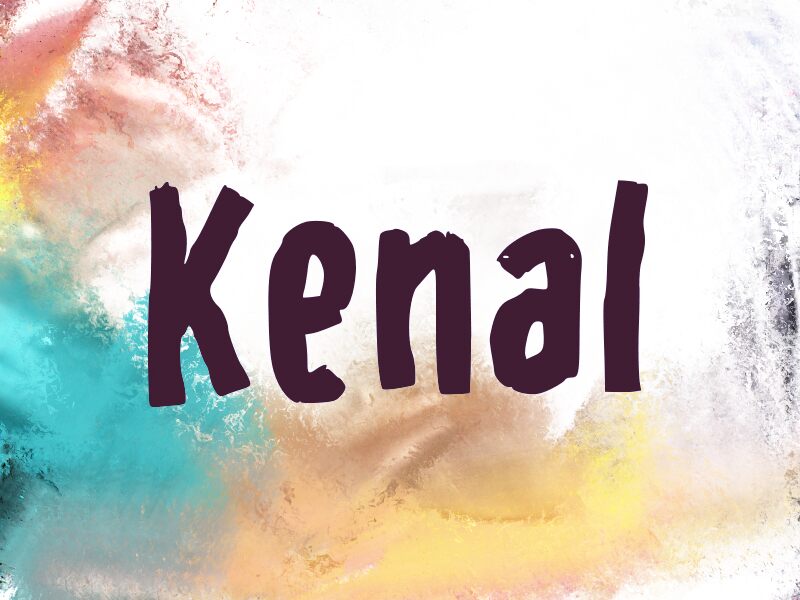
K Kenal font by wep brings a brush style and organic flow to your design projects. This font with a bouncy and hand-drawn look highlights an artistic flair and a modern edge in an overall casual feel. Experience the lively mood it reflects with characters that feature a bouncy alignment and a connected style for word combinations that smoothly flow into one another.
An eye-catching brand name and logotype can leave a mark on any viewer when you make this font a part of the process. So enjoy this versatile font by using it for product packages and labels or advertising projects that need to be both readable and engaging. Or you can use it for headlines and titles, not to mention posters with modern designs, brochures, and presentations.
Kenal is a versatile free font designed to elevate your projects with its modern aesthetic. This font seamlessly blends elegance and readability, making it suitable for various applications including logo design, branding, and digital content.